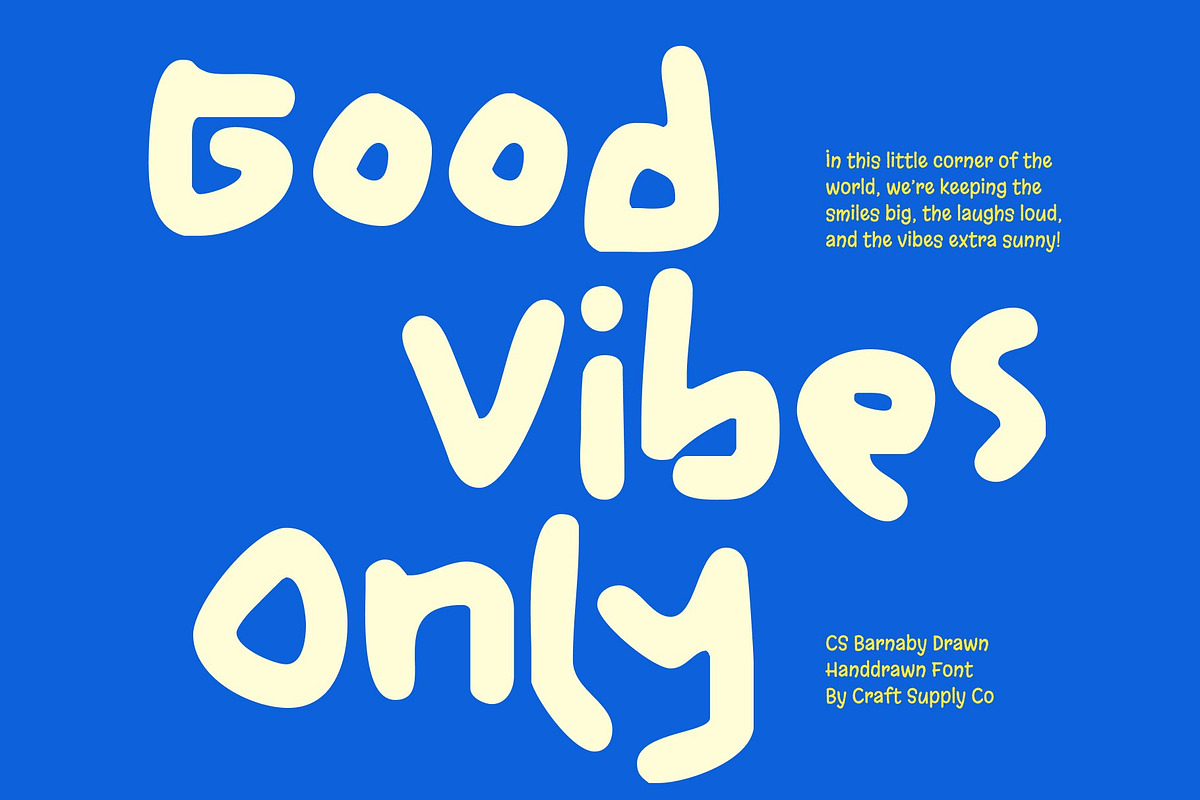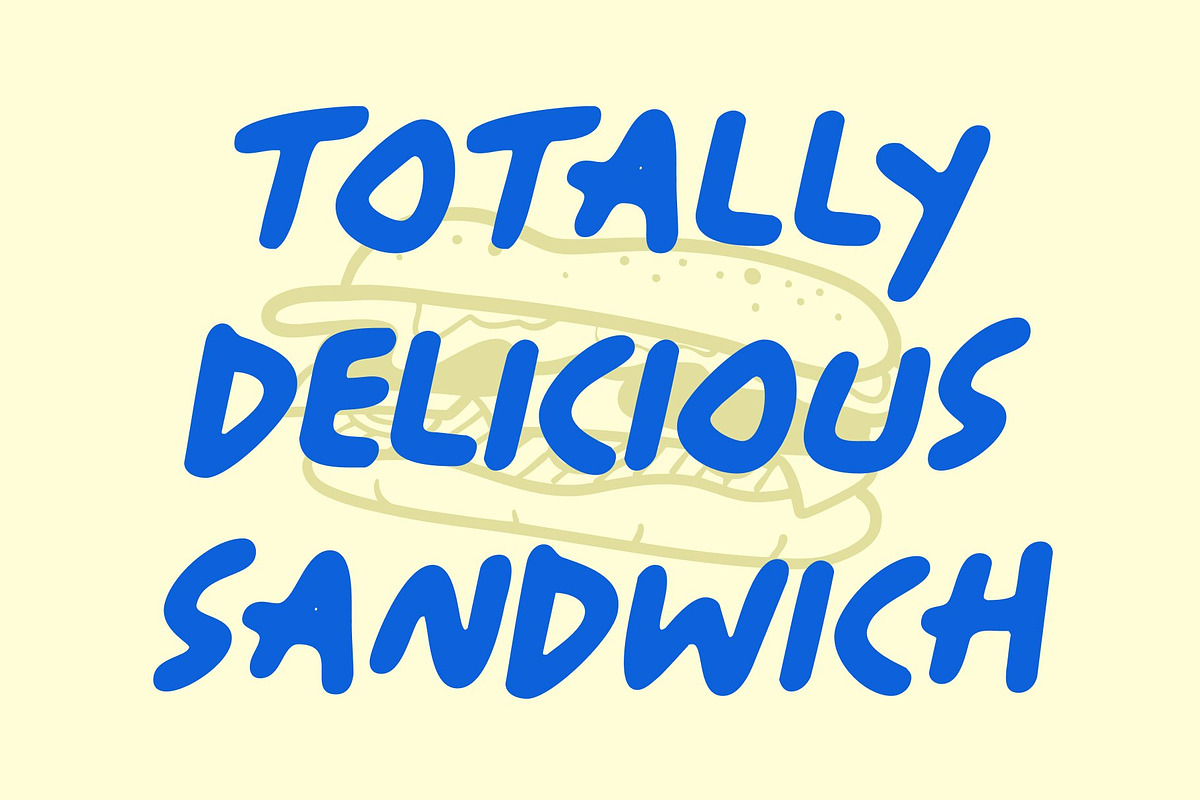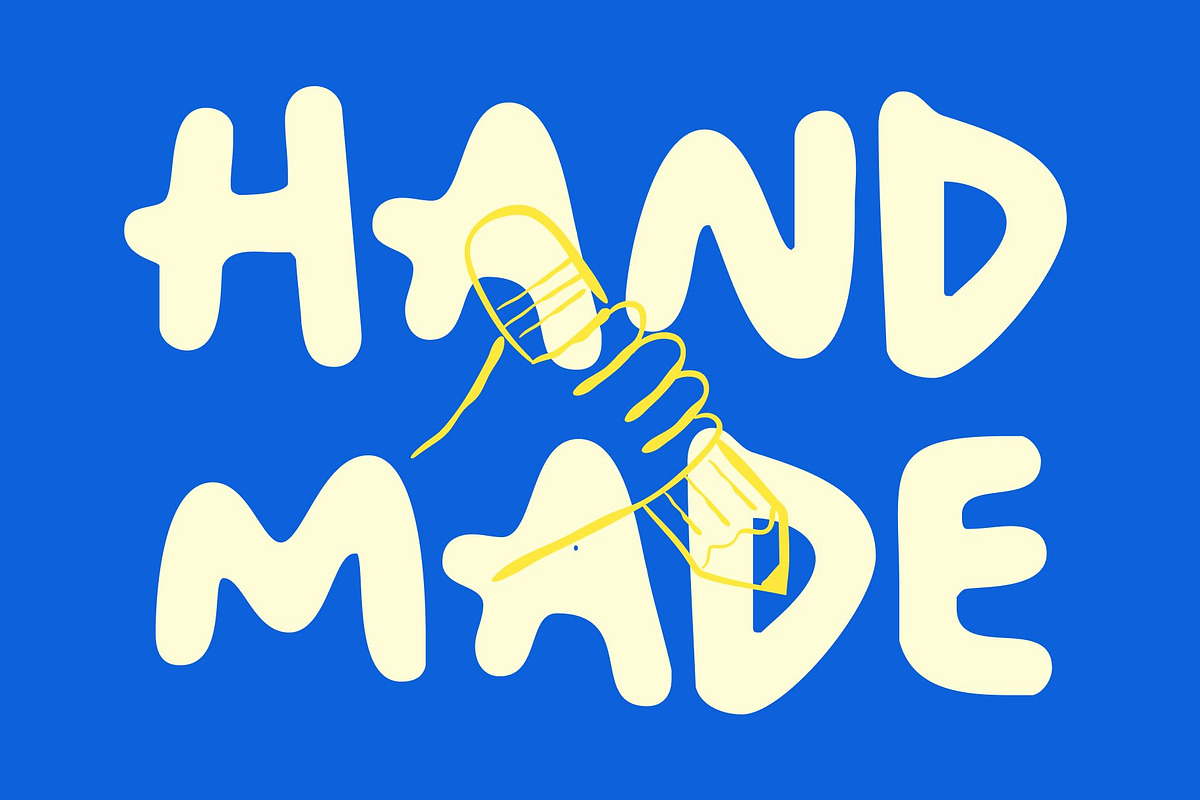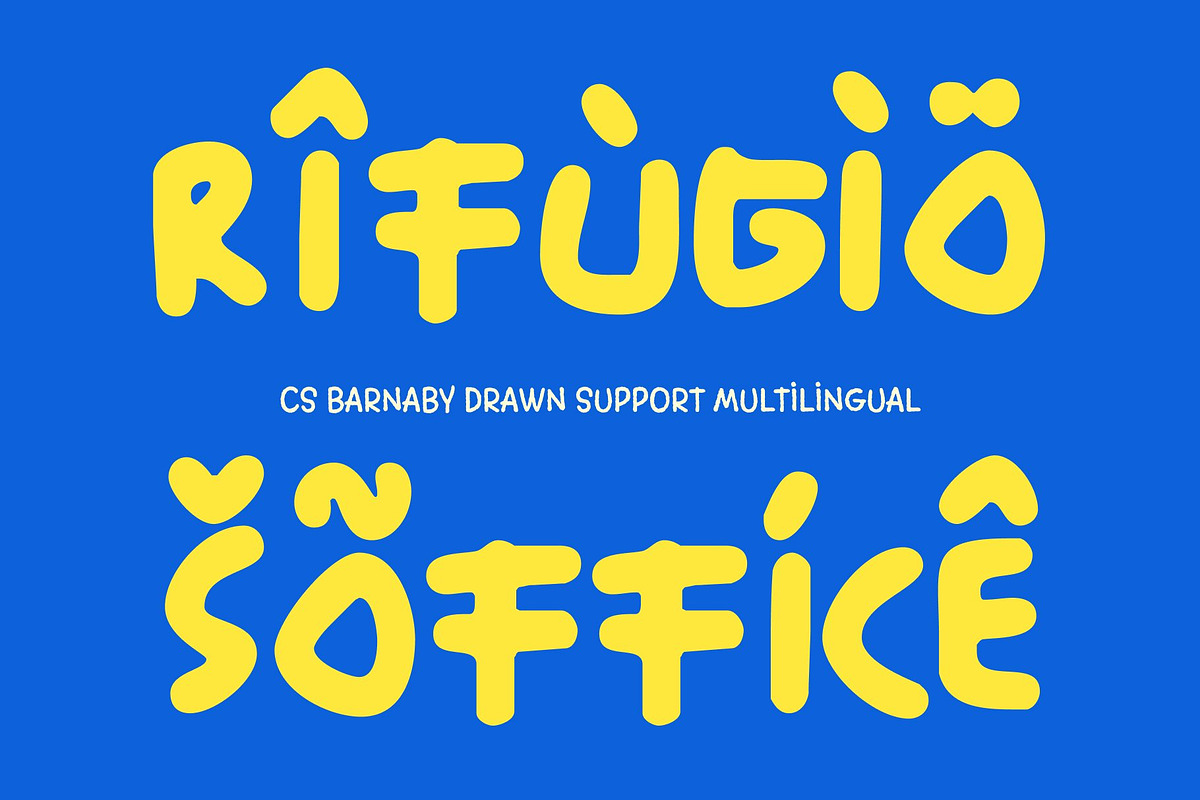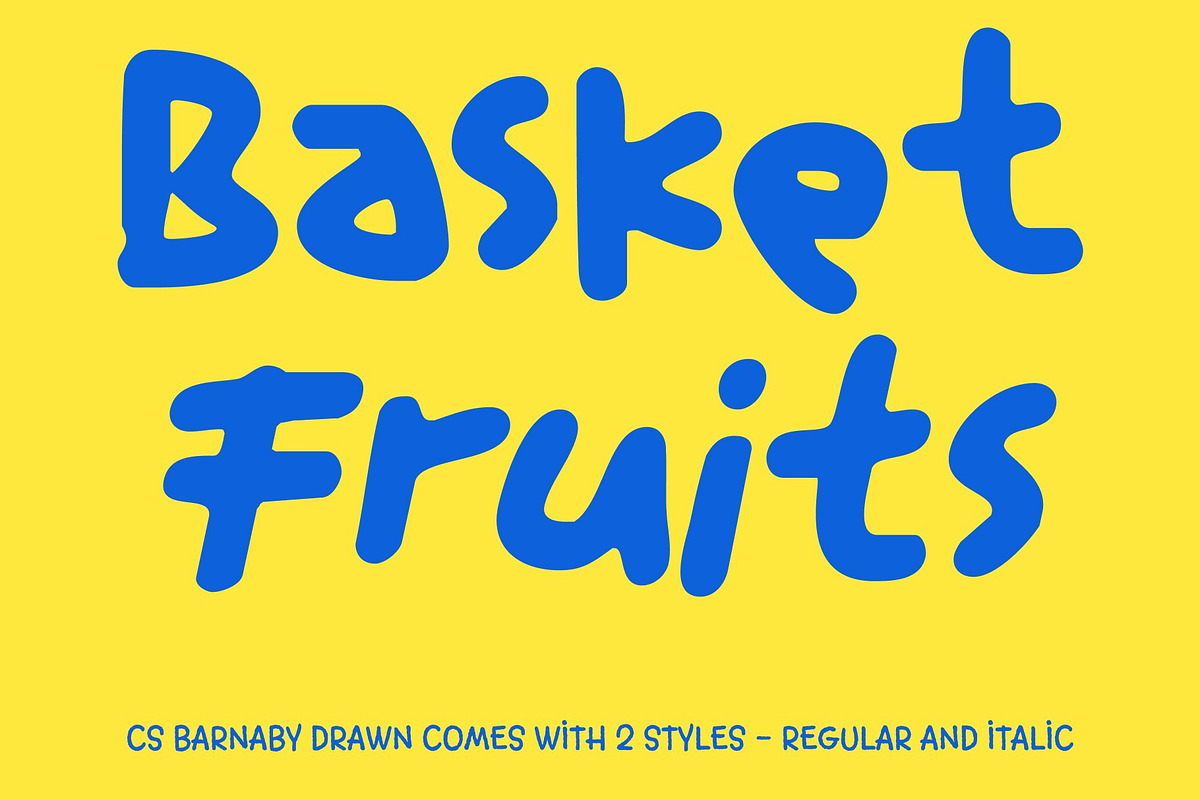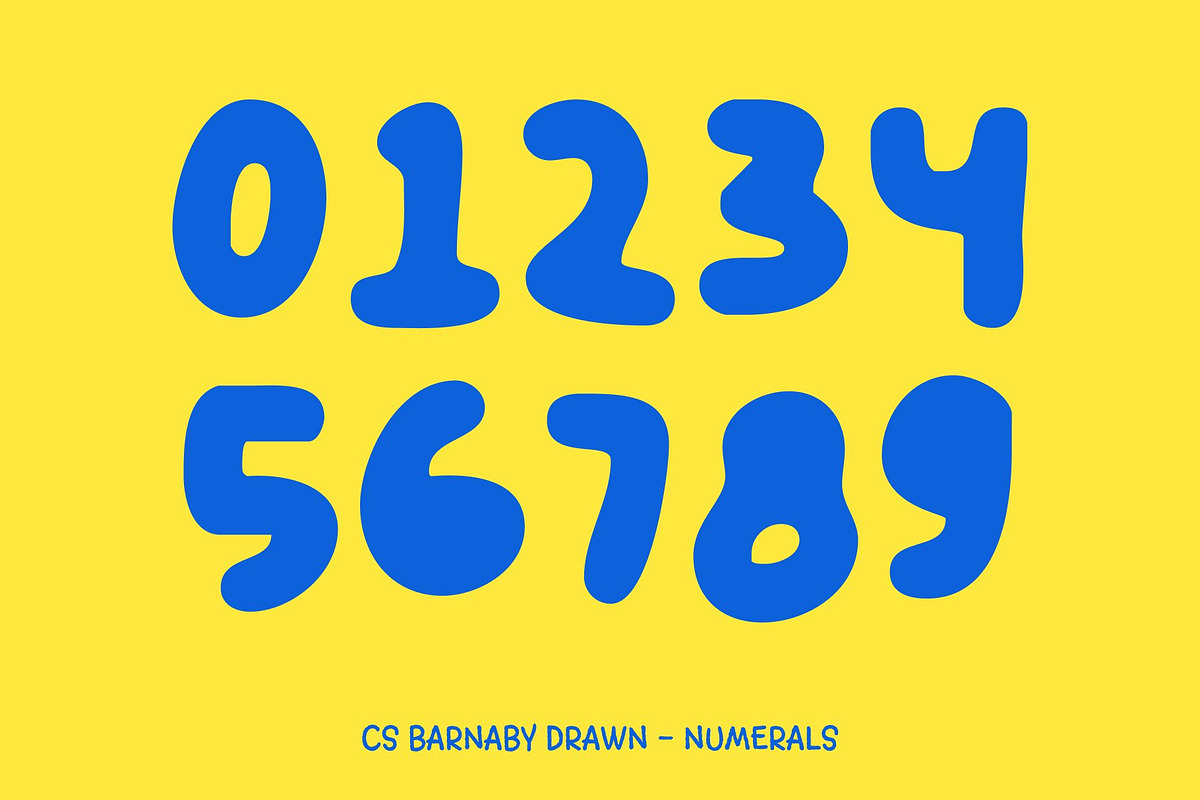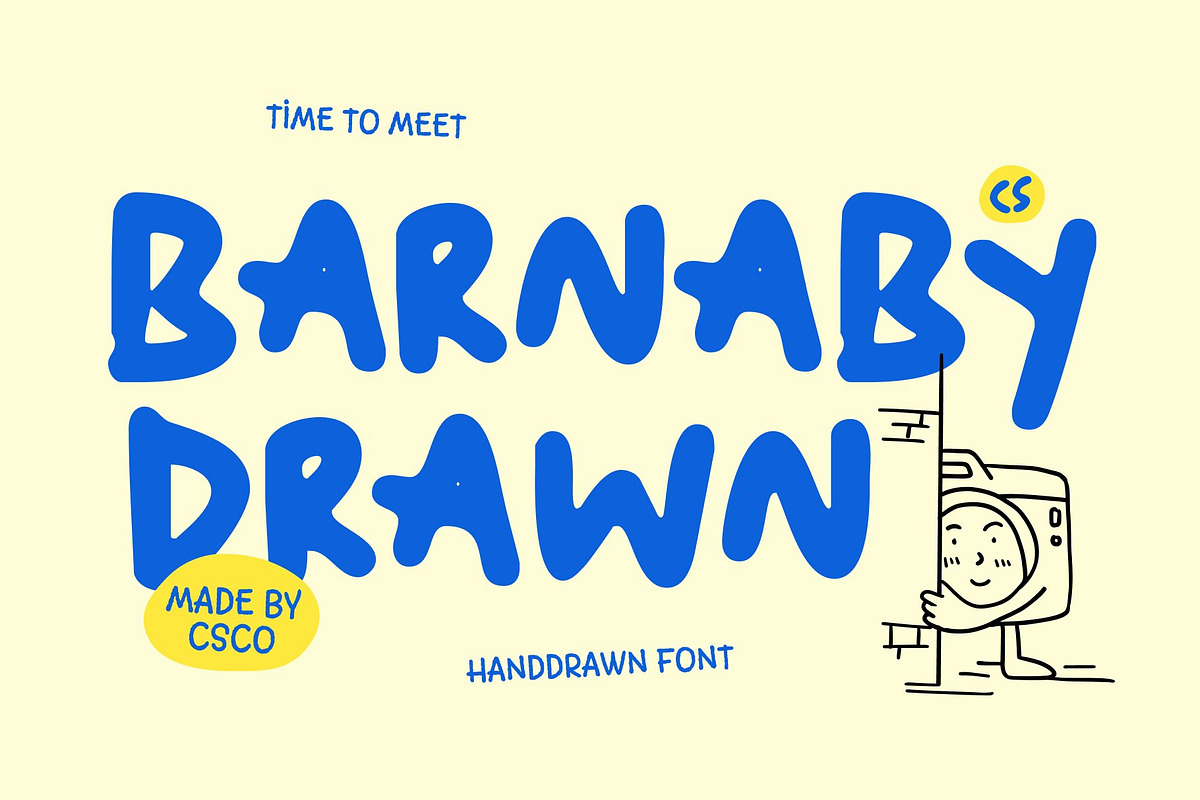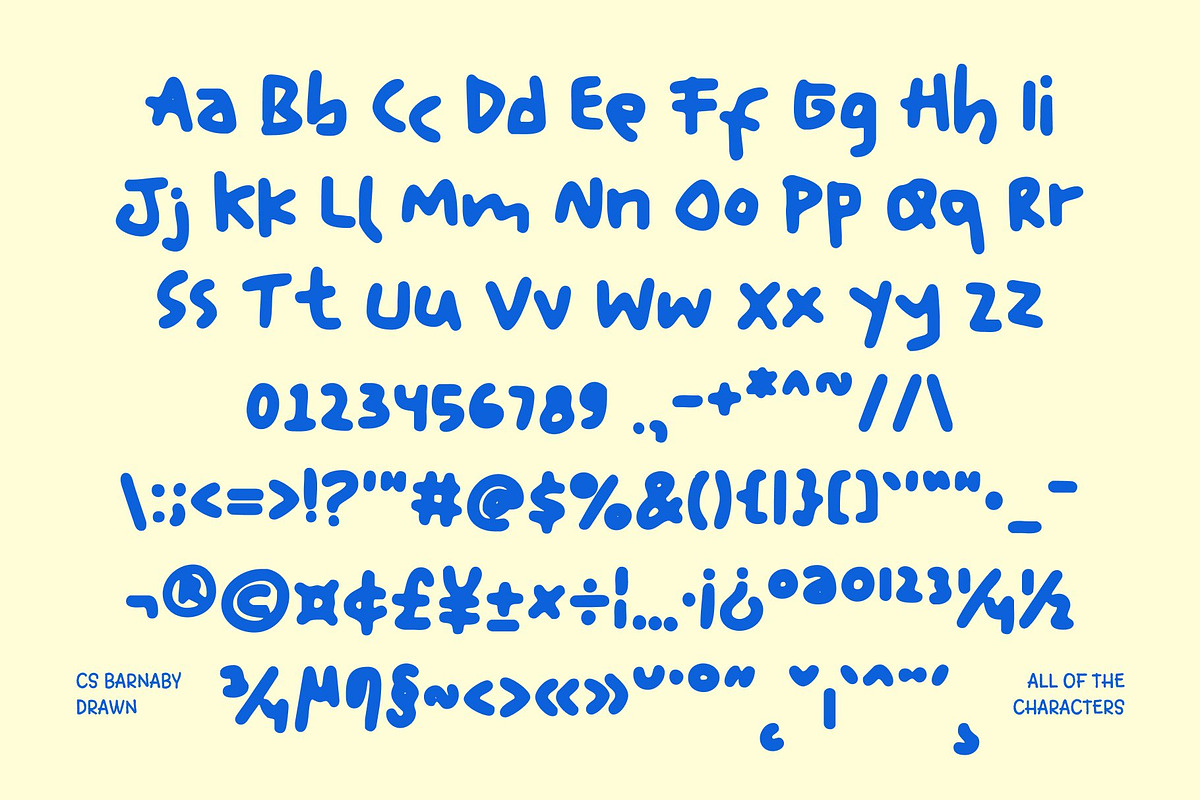
CS Barnaby Drawn
CS Barnaby Drawn – Bold, Messy, and Wonderfully Playful
Bold Expression with an Irresistible Messy Style This is a bold sans-serif display font designed to look delightfully irregular, energetic, and freely scribbled. Its intentionally chaotic strokes create a raw, expressive presence that feels spontaneous and full of personality. By rejecting rigid typographic rules, this font transforms imperfection into visual strength, making every word feel lively and creatively charged.
Irregular Shapes with a Hand-Scribbled Aesthetic The true charm of this font lies in its uneven, hand-drawn construction. Each letter appears as if sketched quickly with confidence, capturing the authenticity of natural handwriting. The messy rhythm and organic inconsistencies add warmth and motion, giving designs a youthful, handcrafted feel that feels genuine and approachable.
Playful Boldness for Creative Impact With its thick weight and quirky proportions, this font delivers playful boldness that instantly grabs attention. The messy structure amplifies its fun-loving character, making it perfect for designs that aim to express joy, humor, and imagination. It brings energy and personality to layouts that want to feel expressive rather than polished.
Perfect for Fun, Youthful, and Creative Projects This font is ideal for kids’ themes, playful branding, posters, packaging, doodle-style graphics, and creative editorial layouts. Whether used for titles or eye-catching headlines, it adds bold creativity and cheerful spirit to every design.